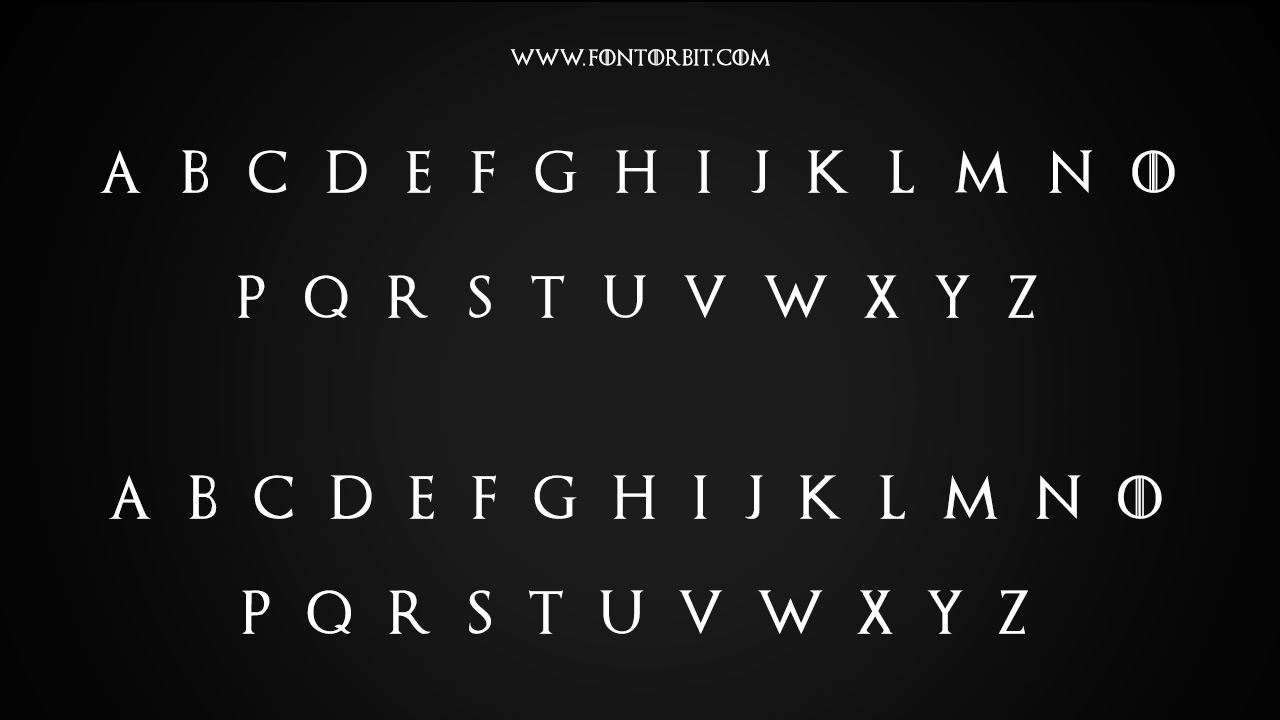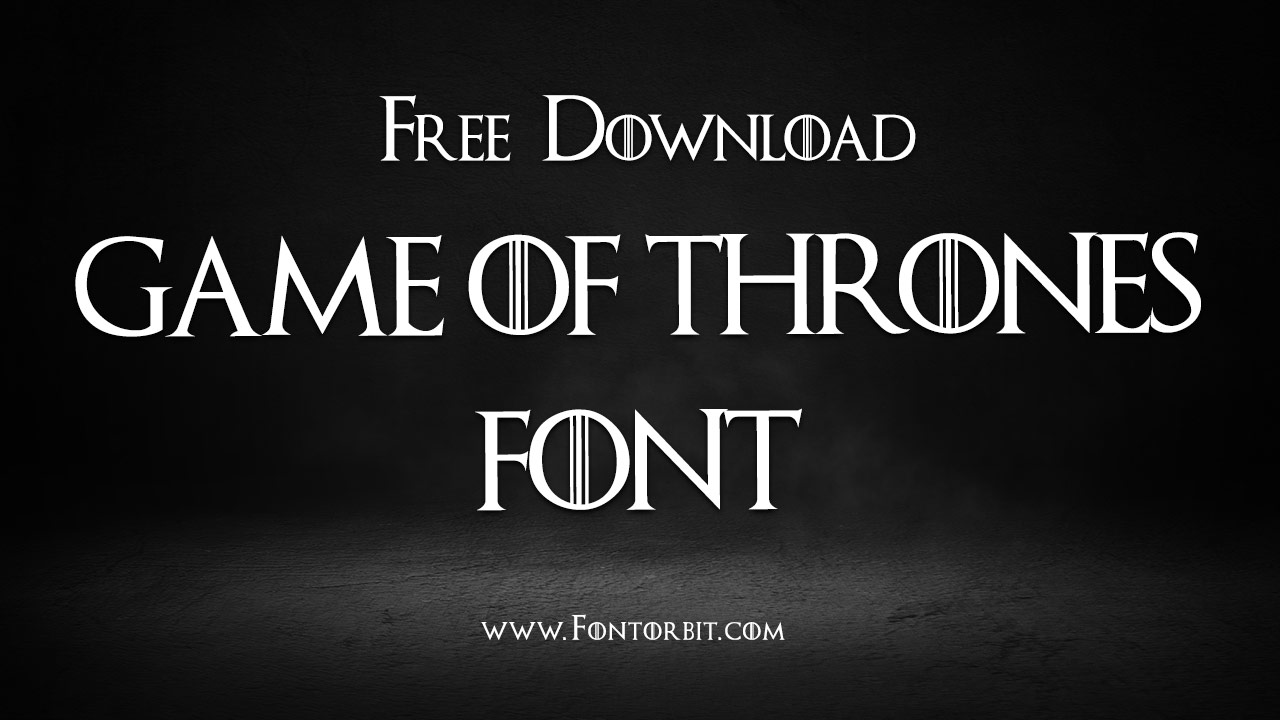
The Game of Thrones font, often referred to as “Game of Thrones” or “Game of Thrones Serif,” is an iconic typeface inspired by the famous TV series “Game of Thrones.”
This unique font was designed by Charlie Samways and has been widely used since the show’s release in 2011. The typeface belongs to the serif family and successfully captures the essence of medieval design with a modern twist, fitting well with the show’s intense, historical theme.
Game Of Thrones Font Family Includes
The Game of Thrones font family features bold and ornate serif designs, perfect for making any content feel regal and dramatic. It includes variations designed to cater to various design needs and aesthetics.
a. Game of Thrones Regular Font
Each variant maintains the elegant and gothic feel reminiscent of the medieval era while incorporating sharp, stylized serifs that bring power and prestige to any design.
Notable Uses Of Game Of Thrones Font
The Game of Thrones font has become synonymous with the show’s branding and is widely recognized in pop culture. This font has been used in:
- Official promotional materials for the TV series “Game of Thrones”
- Fan-created posters, banners, and graphics
- Merchandise like t-shirts, mugs, and other memorabilia
- Event invitations and decor for medieval and fantasy-themed events
The Game of Thrones font is perfect for any project that aims to convey a sense of grandeur, medieval history, or fantasy. Whether you are designing promotional materials, posters, banners, or branding for events and games, this font will elevate the visual impact. This font is best suited for:
- Fantasy-themed designs
- Movie posters
- Gaming-related media
- Invitations for events like medieval fairs or themed parties
- Logos for businesses related to history, fantasy, or media production
If you’re looking for free alternatives to the Game of Thrones font, here are some similar fonts:
- Trajan Pro Font
- Warnock Font
- Mason Font
- Asterism Font
- Hodor Font
- The Dodger Font
These fonts share similar medieval and gothic design aesthetics, offering alternatives to the Game of Thrones font for various creative projects.
The Game of Thrones font continues to be a popular choice for designers and fans alike, offering a unique style that encapsulates the mystique and grandeur of the hit series.
Its versatility in design makes it perfect for both personal and professional projects, allowing you to bring an air of fantasy and history into your work.
1.What Is The Best Use Case For The Game Of Thrones Font?
It’s ideal for fantasy-themed projects, posters, merchandise, and event branding.
2.Can I Use This Font For Designing Logos?
Yes, especially for logos related to medieval or fantasy themes.
3.Does This Font Work Well For Invitations?
Yes, the font’s ornate style works great for medieval or fantasy-themed invitations.
6.Is There A Bold Version Of The Game Of Thrones Font?
Yes, the font family includes a bold-variant.